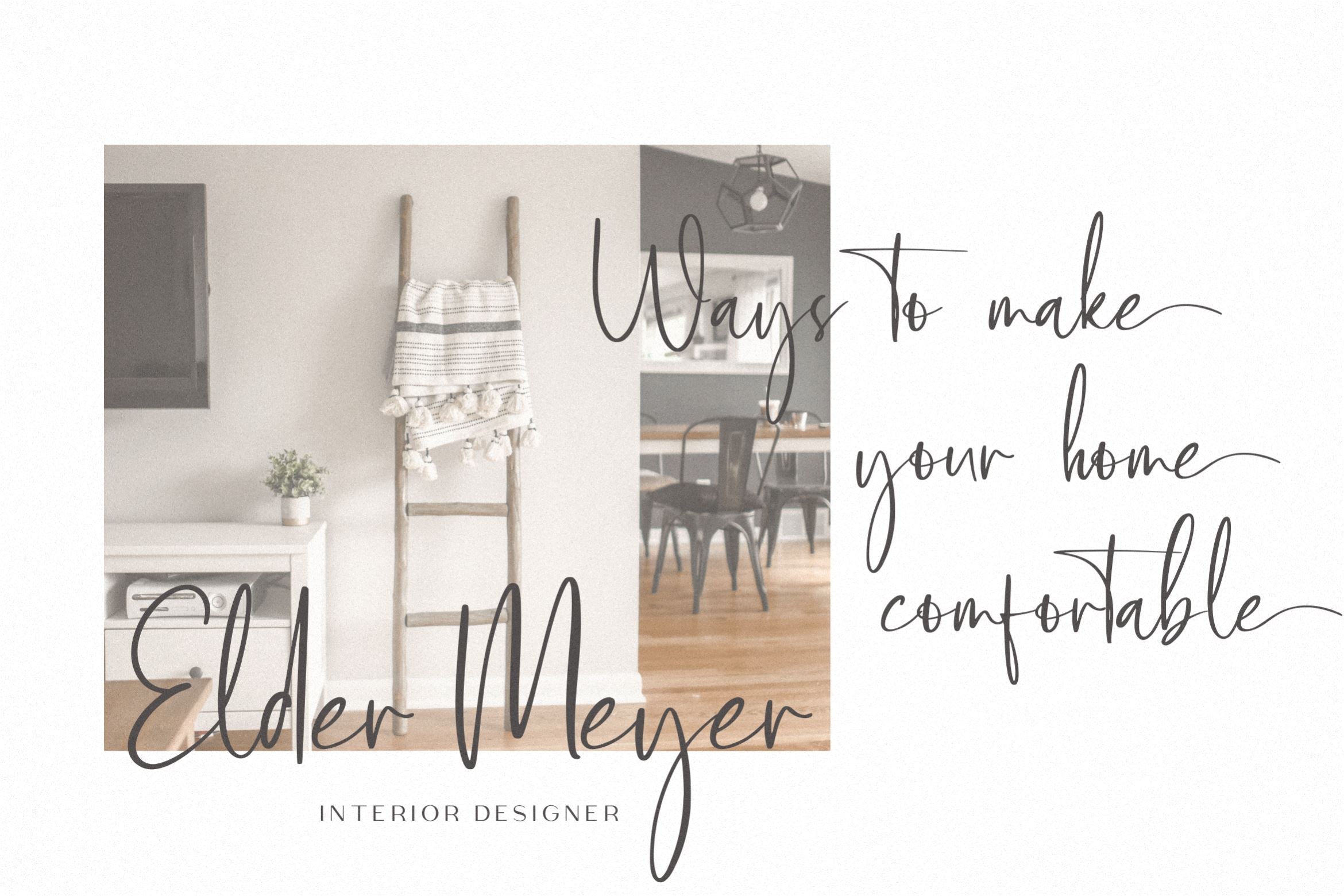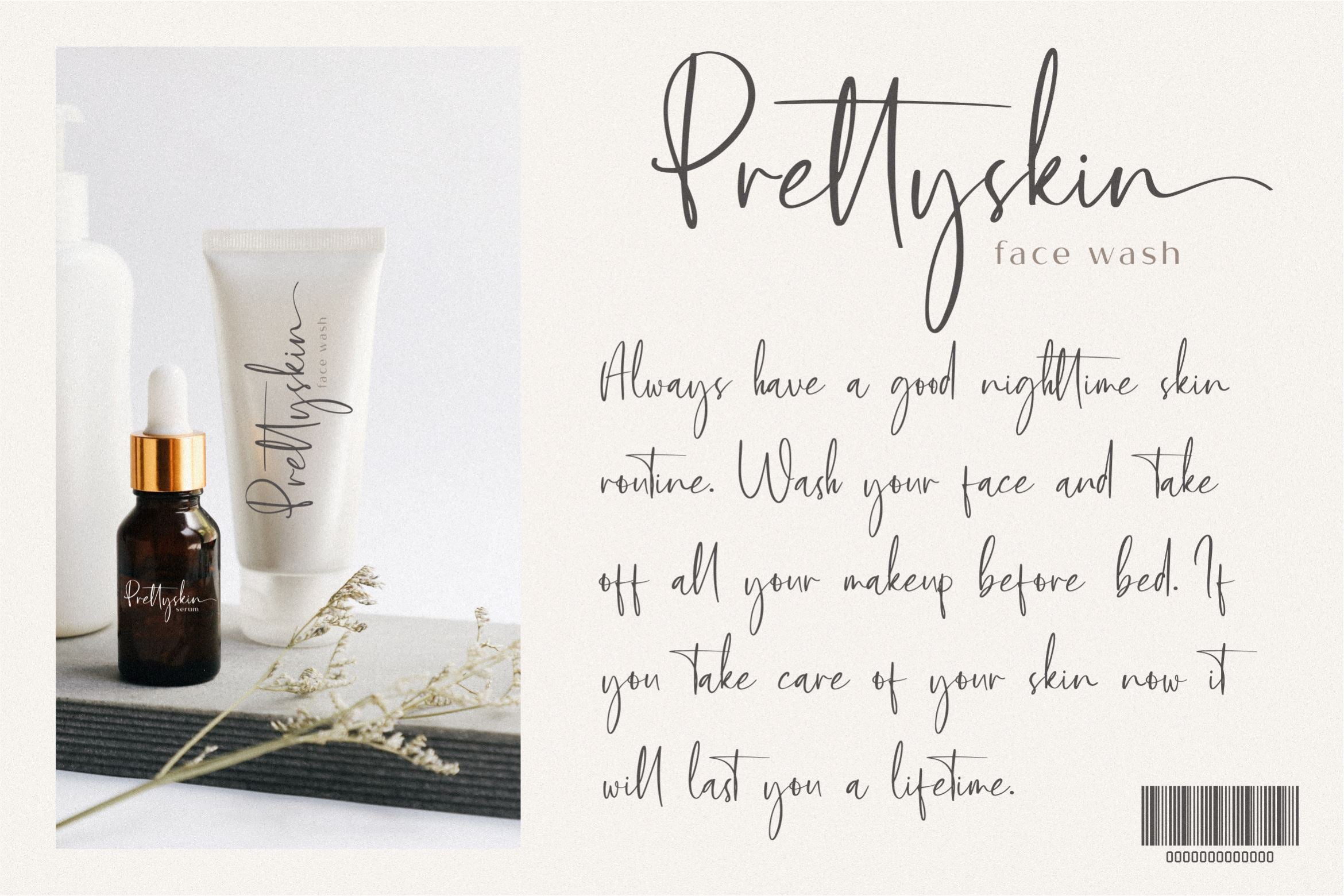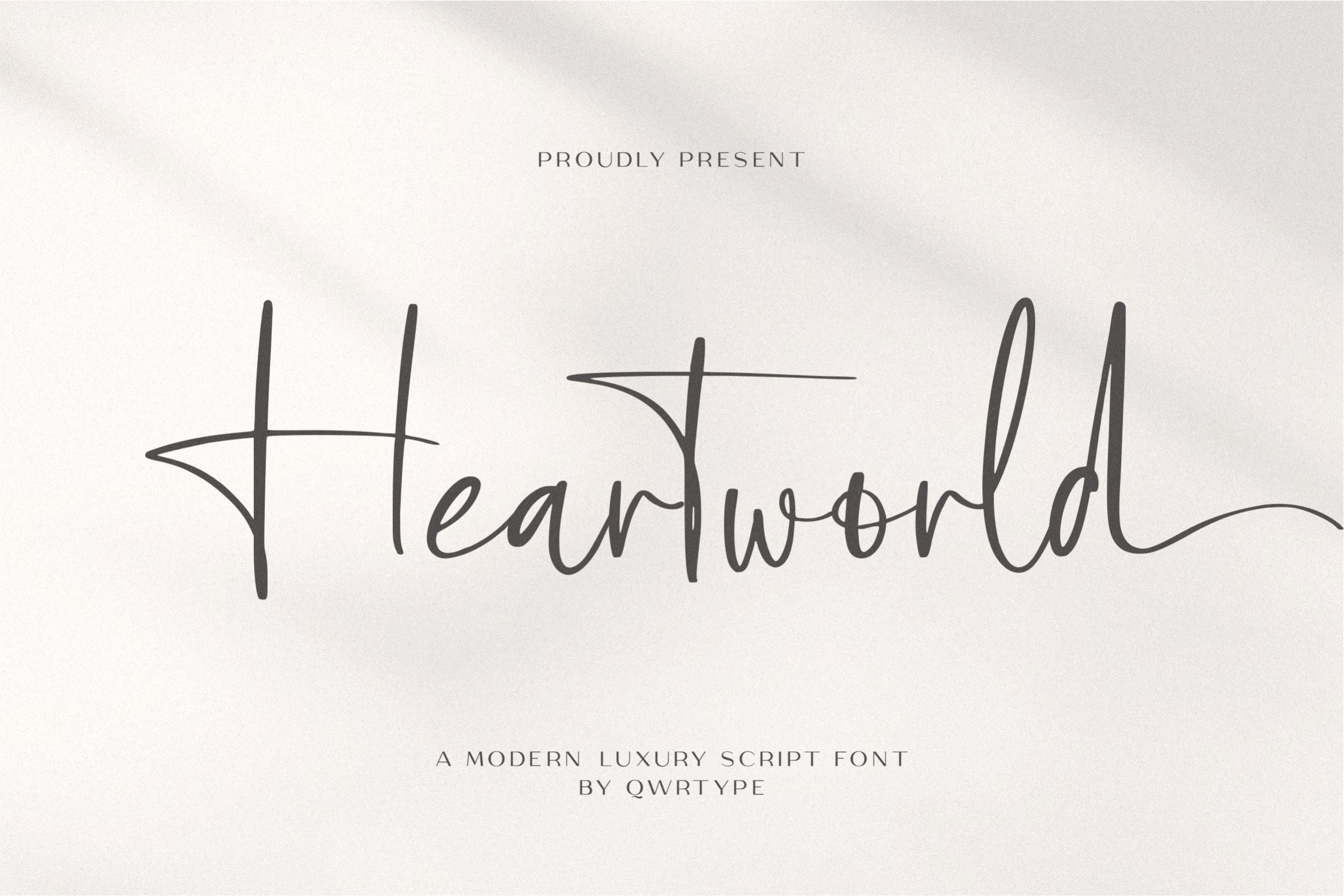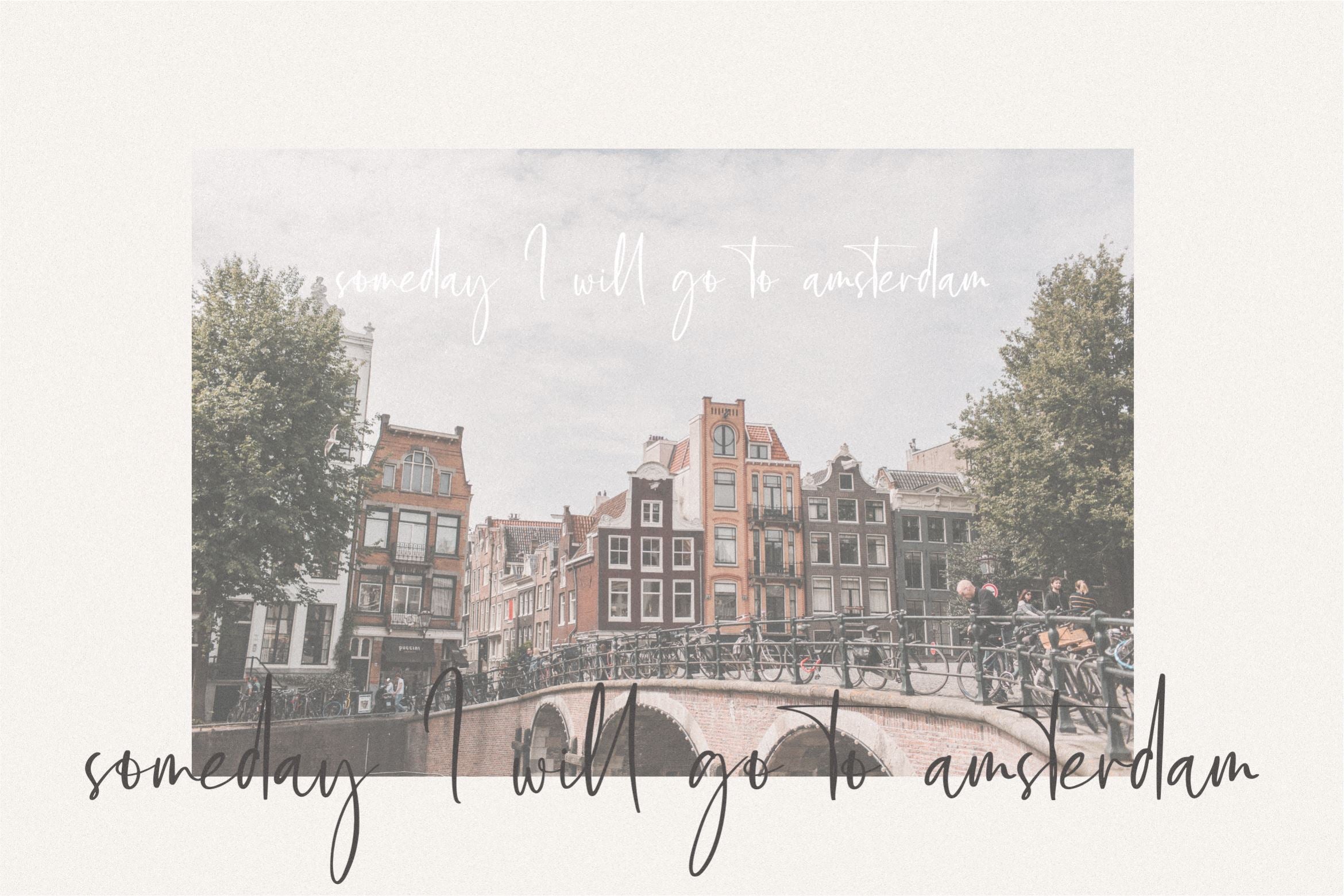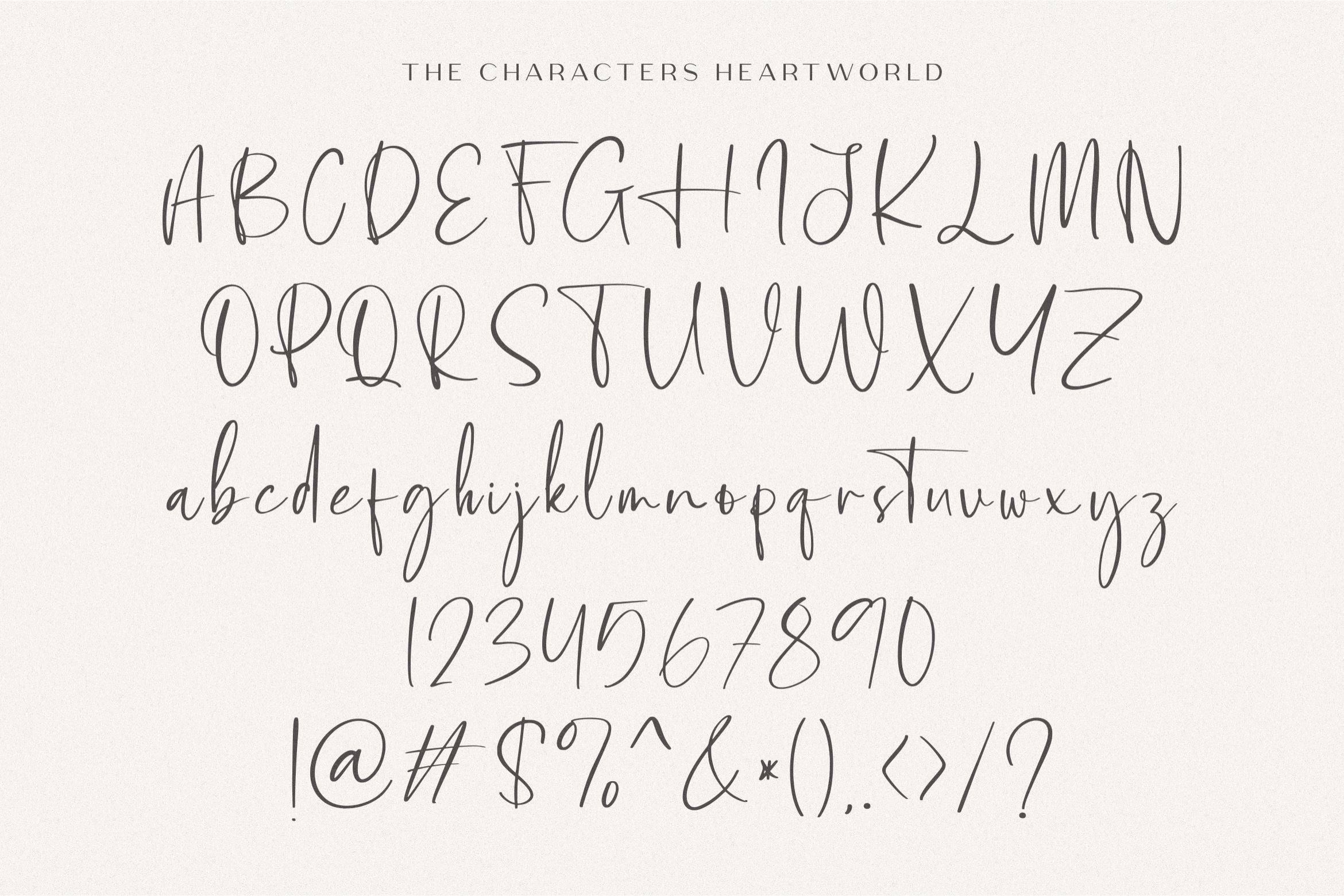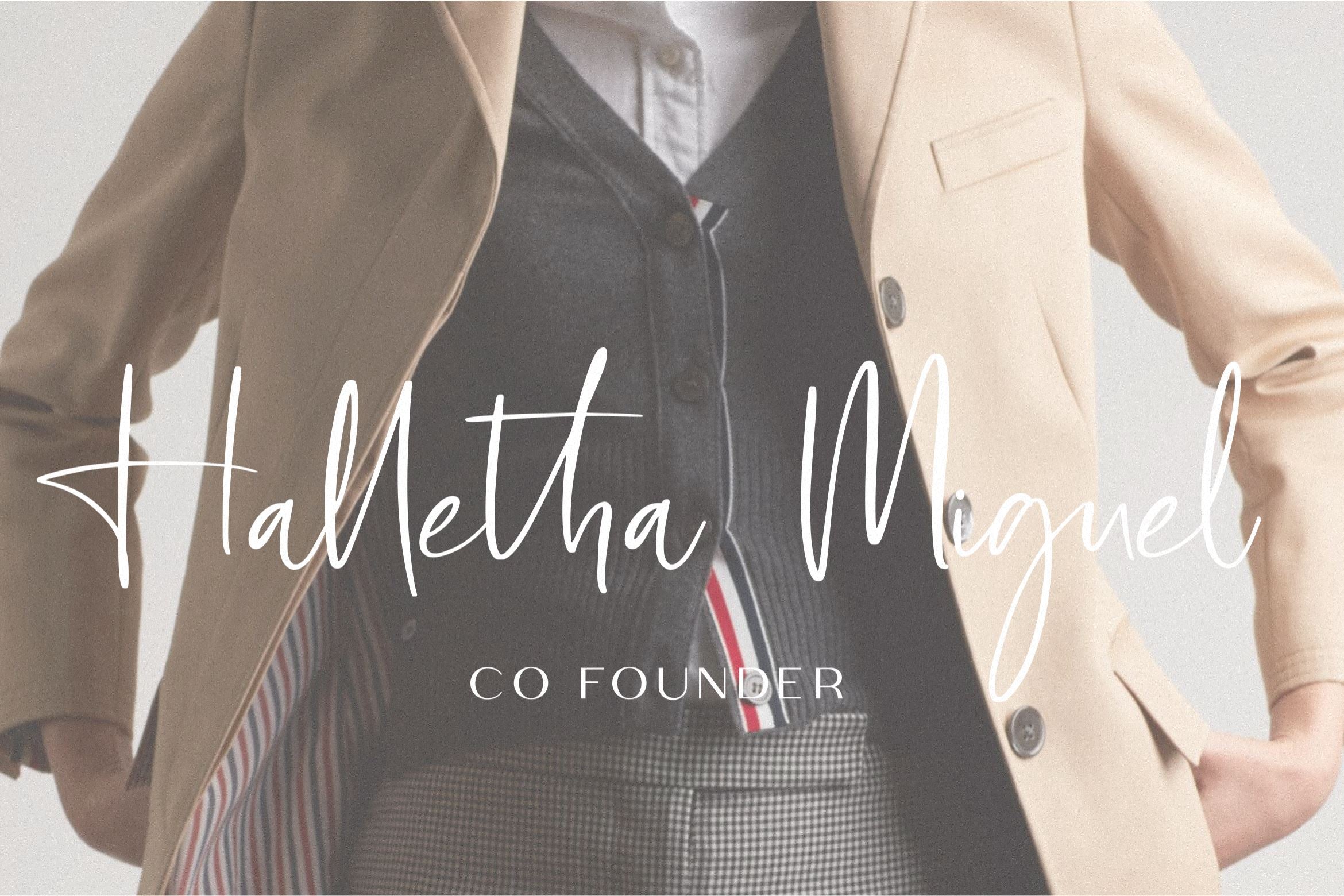
About Heartworld
Introducing by Qwrtype Proudly Present, Heartworld Heartworld is a Modern Luxury Script Font Heartworld is perfect for product packaging, branding project, megazine, social media, wedding, or just used to express words above the background. This font includes OTF, TTF & Woff, Heartworld also multilingual support. Enjoy the font, feel free to comment or feedback, send me PM or email. Thank you!